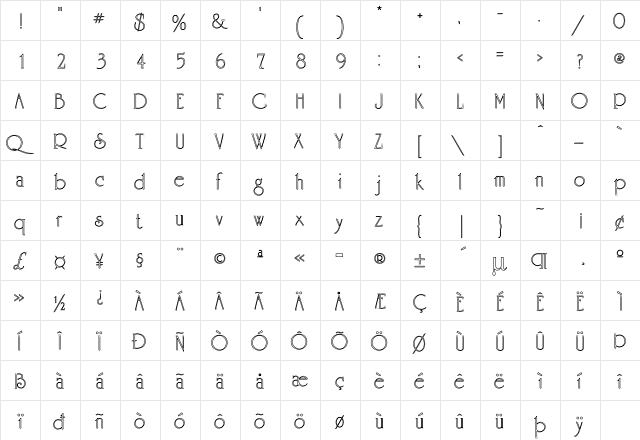
Graduate Ho Regular
Design Context for Graduate Ho Typeface
Graduate Ho is a composed and adaptable typeface that performs quietly and consistently across a wide range of design contexts.